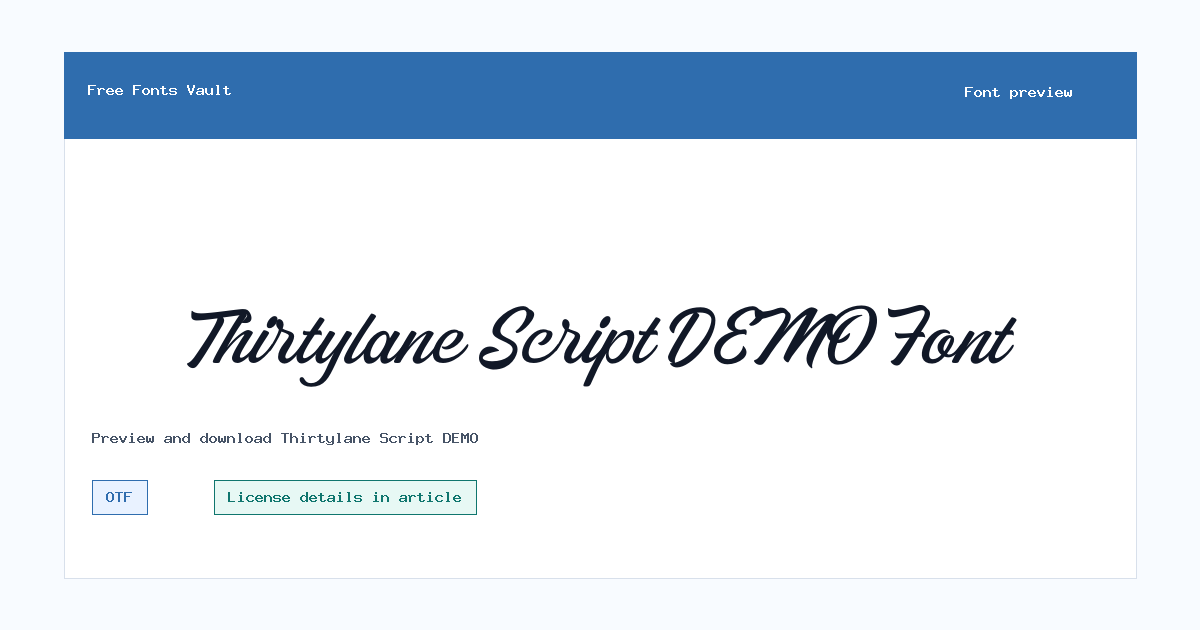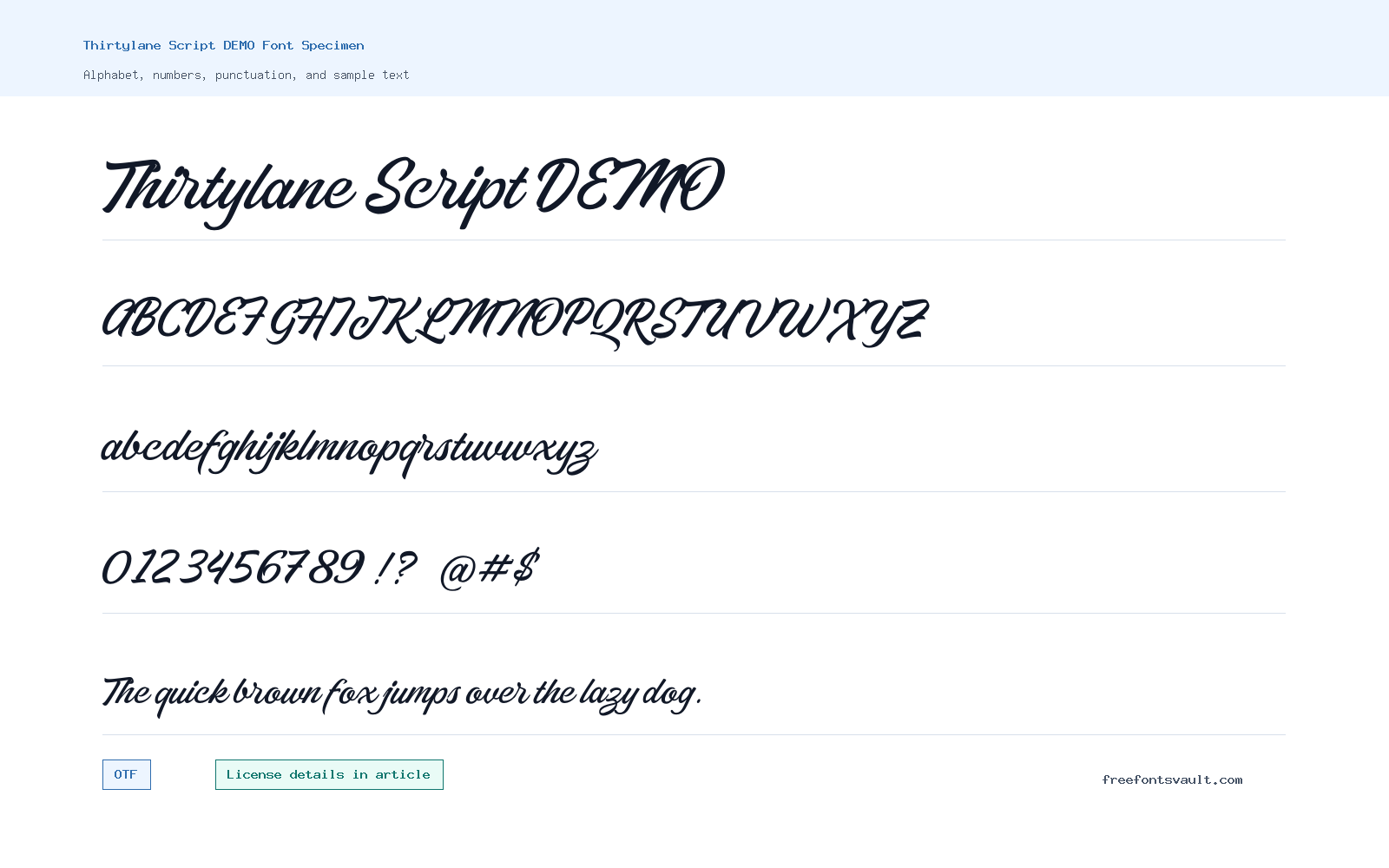
Thirtylane Script DEMO
Thirtylane Script DEMO font.
Thirtylane Script DEMO is a decorative script font for short phrases that need a handwritten or signature-style feeling. It is best used where the words can breathe, such as names, invitations, packaging mockups, and display headings.
About Thirtylane Script DEMO
The family is credited to Letterhend Studio and is listed here as a regular OTF file. Its script direction makes it more expressive than a plain text face, so the safest way to judge it is with the exact wording you plan to use. Names, initials, brand phrases, greetings, and short titles will show the rhythm better than a long paragraph.
Script fonts usually depend on spacing, capital shapes, and how letters connect visually. Before downloading, test uppercase starts, lowercase endings, apostrophes, ampersands, and any names that matter for your design. If the preview feels too ornate for small sizes, keep Thirtylane Script DEMO for larger title work and use a quiet companion font for descriptions or menu text.
- Useful for expressive words, names, and decorative headings.
- Best tested with real short phrases instead of long body copy.
- Invitation titles, greeting cards, and personal stationery mockups.
- Logo drafts, packaging concepts, and boutique brand previews.
- Social graphics, quotes, and signature-style name treatments.
- Short website or blog headings where a script accent is needed.
- Product label tests that need a handcrafted tone.
Keep the text short and preview it at final size. Script fonts can become hard to read in all caps, long sentences, narrow columns, or small UI labels. Pair it with a simple sans serif or serif when you need supporting text.
What kind of font is Thirtylane Script DEMO?
It is a script-style display font, best for names, headings, invitations, packaging tests, and other short decorative text.
Is it suitable for paragraphs?
No. It is better as a display accent. Use a simpler typeface for paragraphs, captions, menus, and long descriptions.
What should I preview before using it?
Preview names, initials, capital letters, punctuation, and the final phrase length. Script fonts depend heavily on those details.